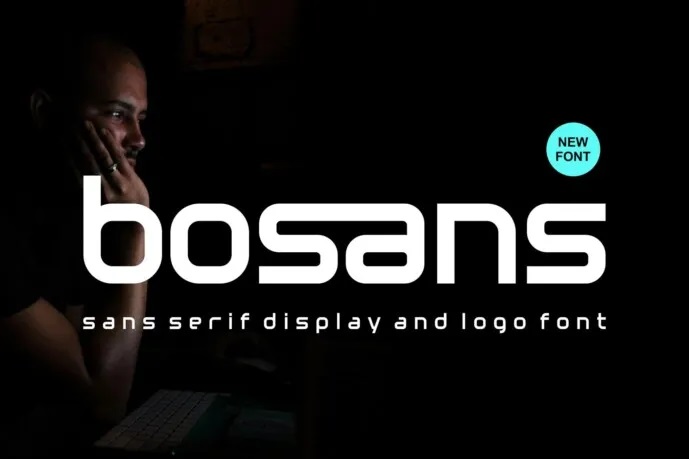
Bosans Font
Bosans Font-Modern Font is an authentic and bold display font ideal for branding projects such as logos, T-shirt prints, Esports tournaments and more. This font works in numerous contexts making it suitable for various purposes.
Bosans Sans Serif Font